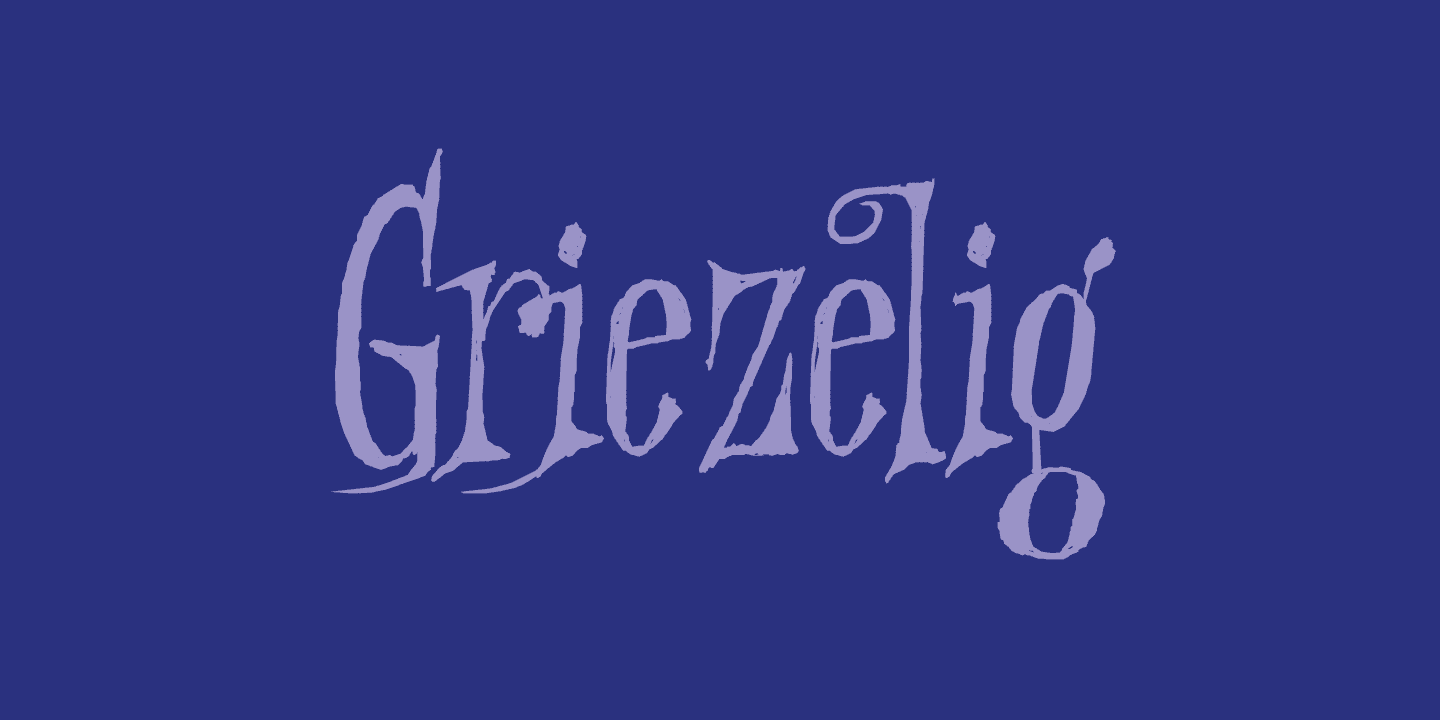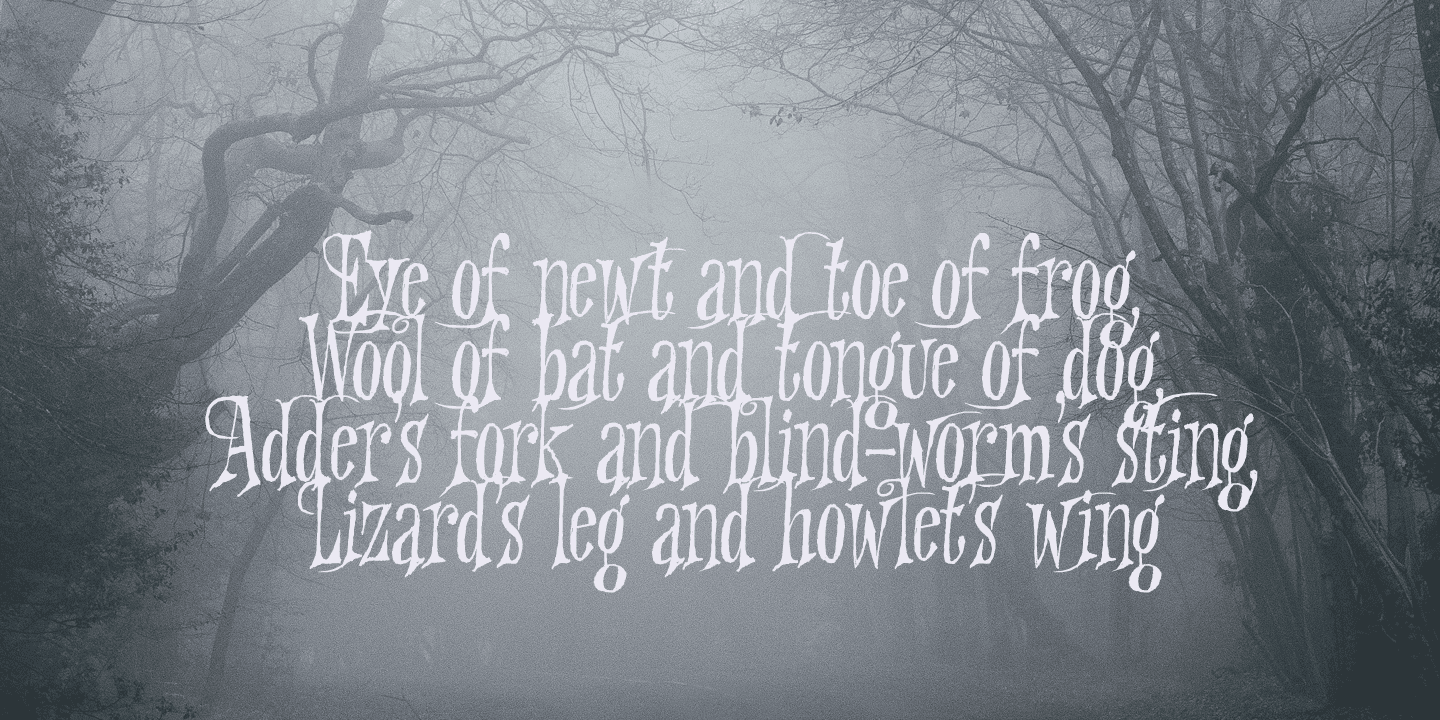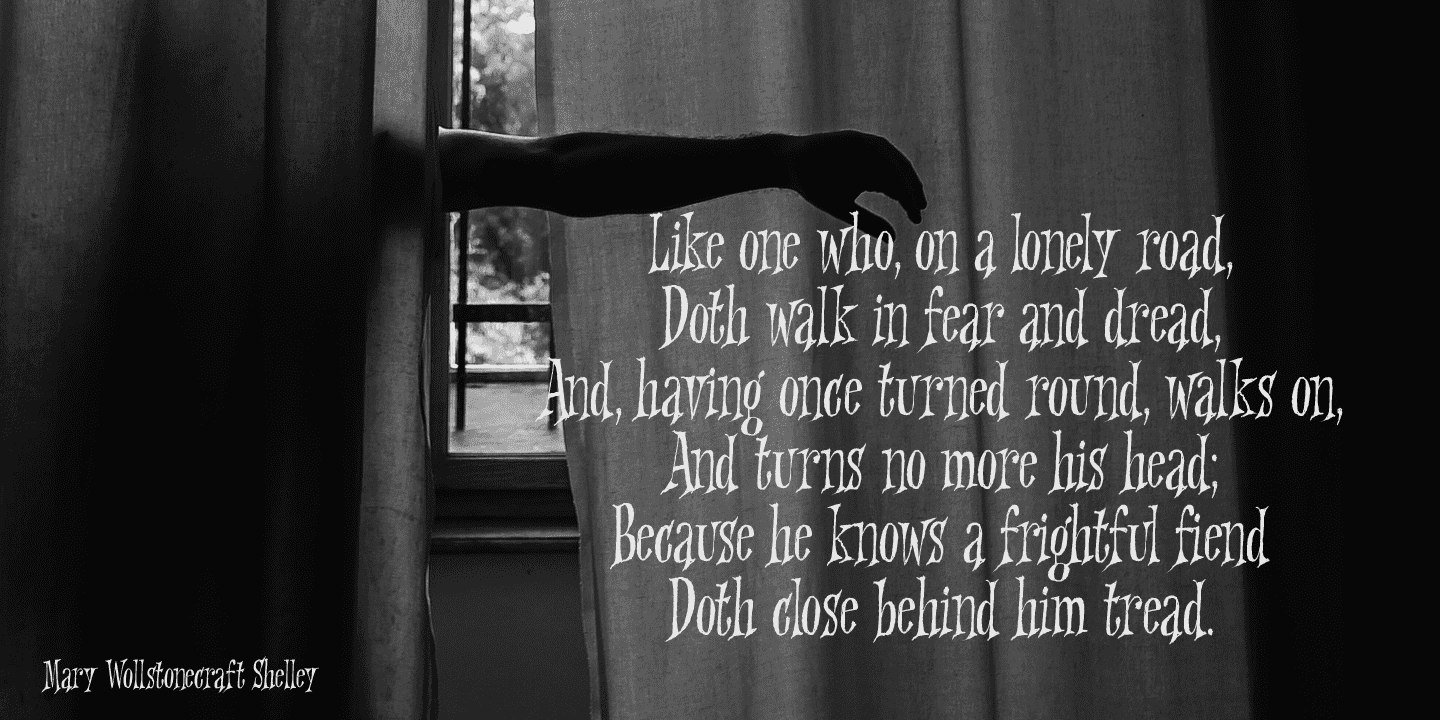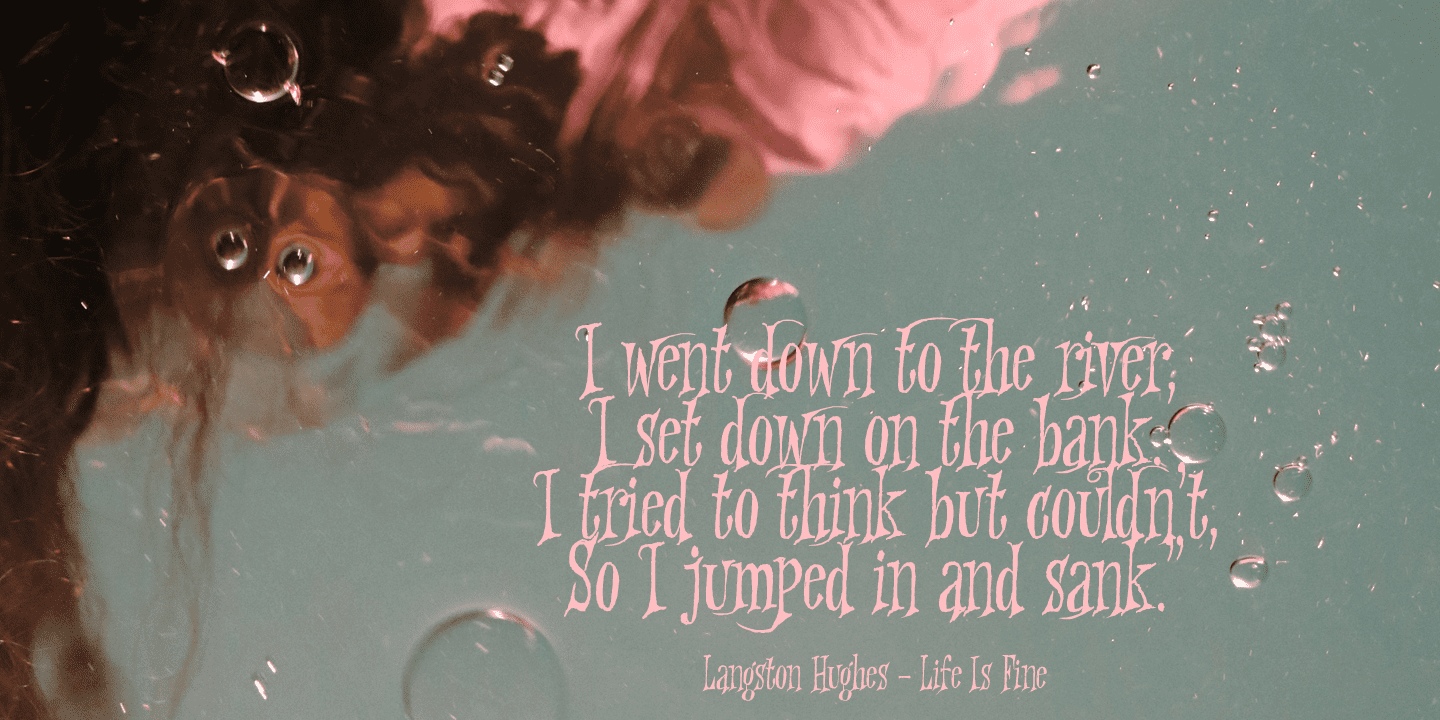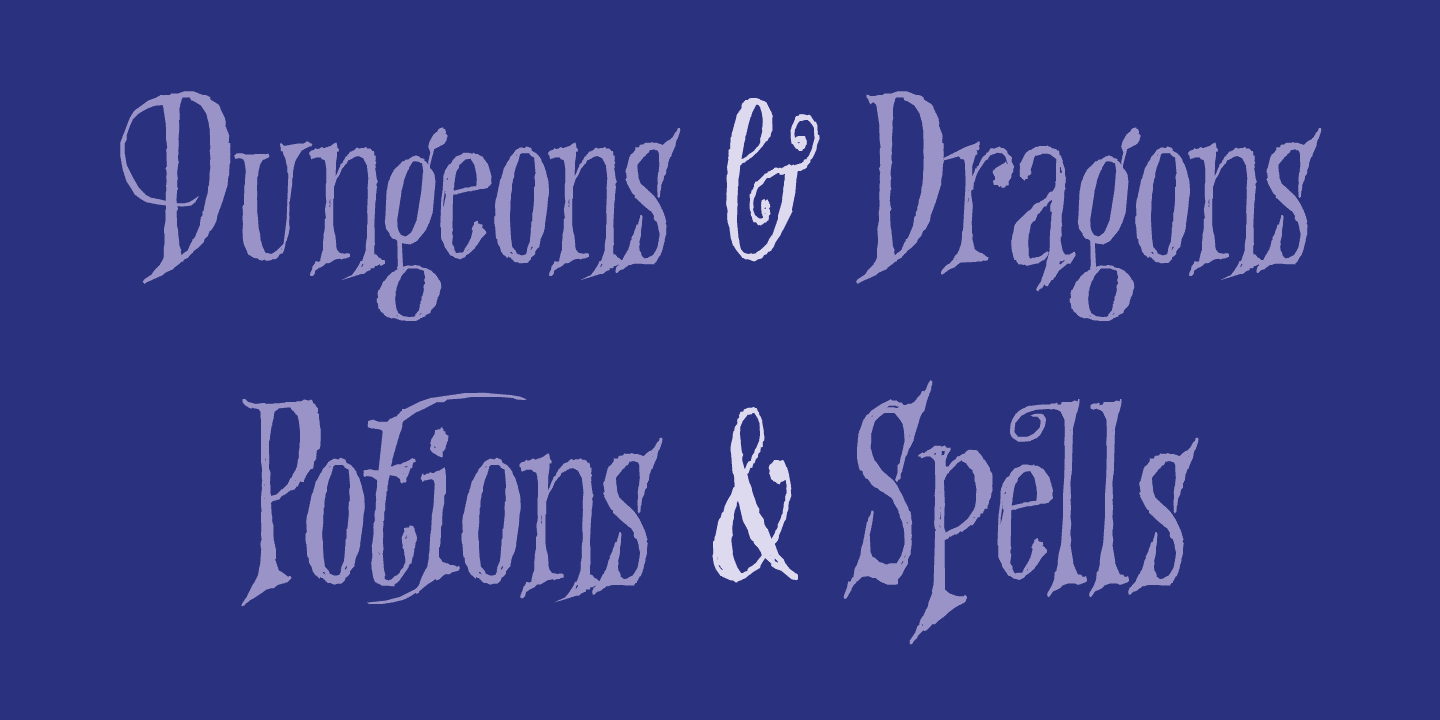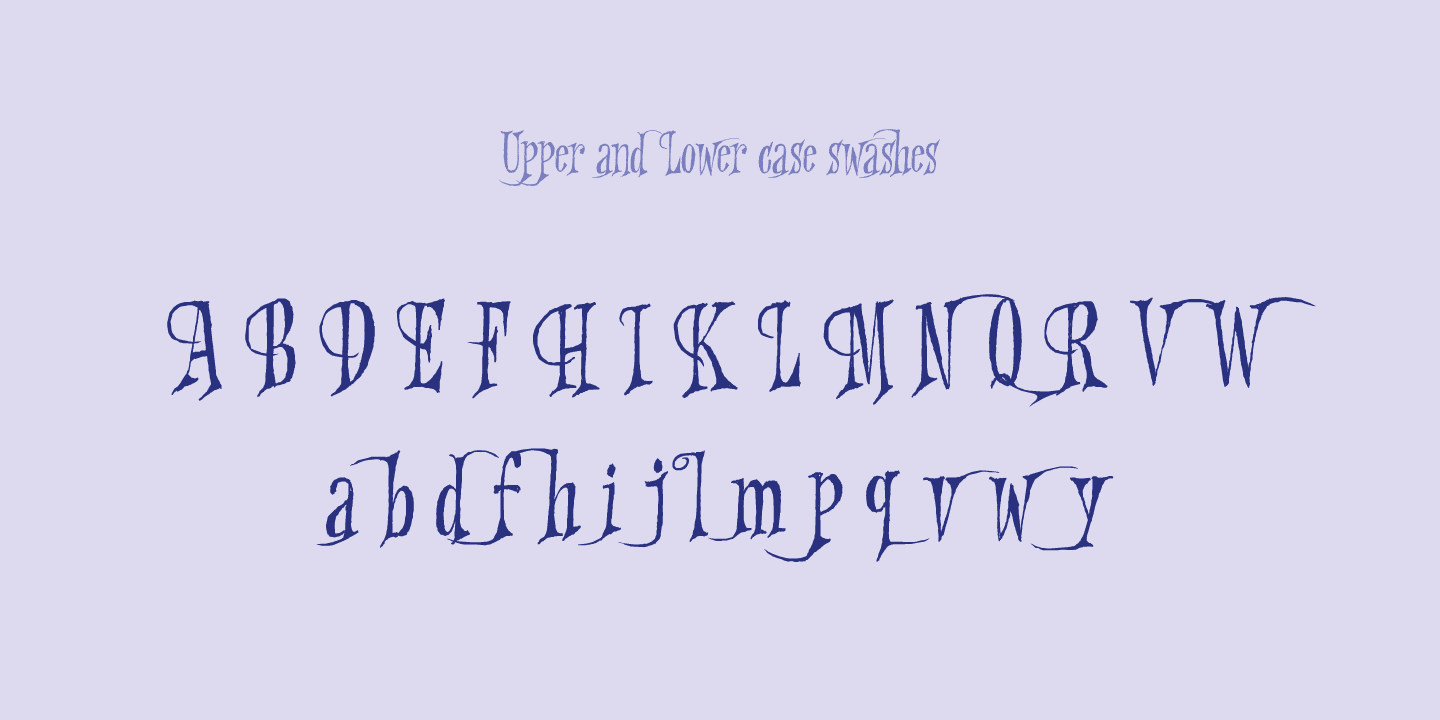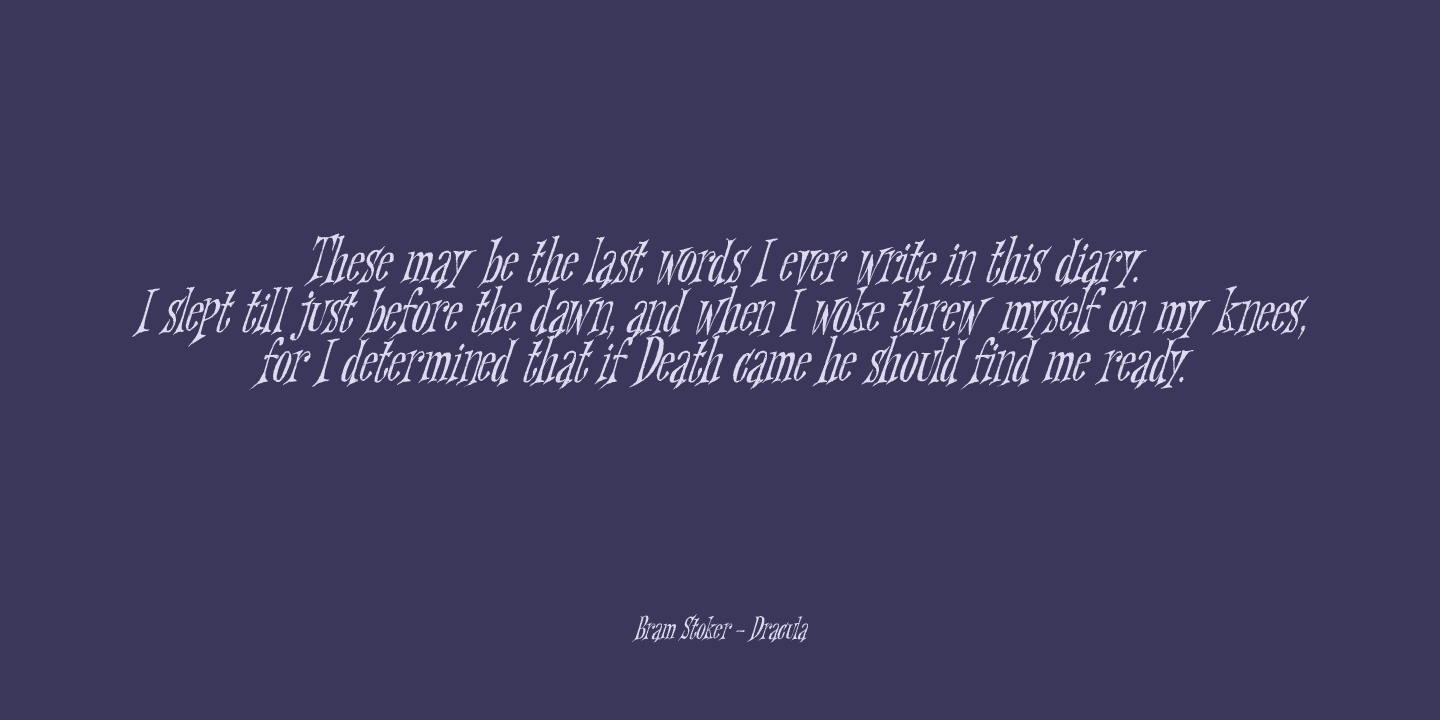
Griezelig Family (2 fonts)
Griezelig was loosely based on two of my favourite (but unfortunately rather inconspicuous) fonts called Hexenhammer and Bronwen.